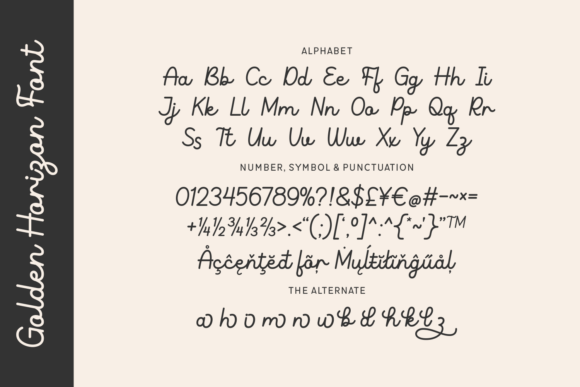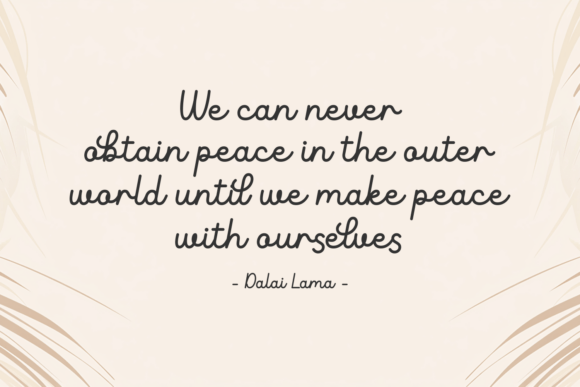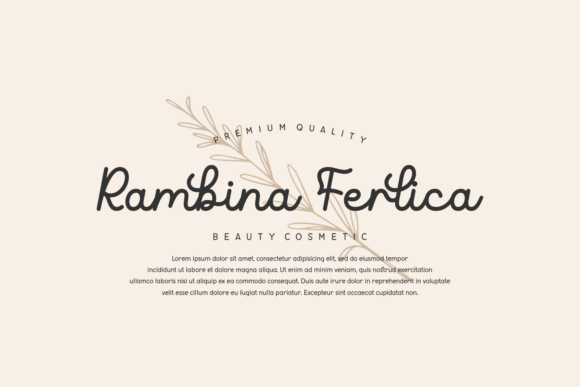
Unlock the Secret to Elevating Your Designs with the Golden Horizon Font
Have you ever stared at a blank canvas, feeling the weight of creativity bearing down on you? The cursor blinks, taunting you with the endless possibilities. Suddenly, a spark of inspiration strikes, and you know exactly what your design needs – a font that exudes elegance and sophistication. That’s where the Golden Horizon Font comes in, a sleek monoline script font designed to elevate your branding, invitations, and social media graphics to the next level.
With its smooth curves and stylish ligatures, the Golden Horizon Font is the perfect addition to any designer’s toolkit. Whether you’re a seasoned pro or just starting out, this versatile font adds a touch of minimalistic sophistication to your designs, making it a valuable asset for any creative project. By incorporating the Golden Horizon Font into your work, you’ll be able to create stunning visuals that leave a lasting impression on your audience.
Key Features of Golden Horizon Font
- Unique Characteristics: Golden Horizon Font features a unique blend of modern and vintage elements, with subtle texture and nuance that adds depth and character to text.
- Font Style: Golden Horizon Font comes in a range of styles, including regular, bold, italic, and bold italic, allowing designers to create varying levels of emphasis and contrast.
Designer Review: Golden Horizon Font
Overall, I think Golden Horizon Font has a lot of potential, but it also has some limitations that need to be addressed. Let’s dive in and take a closer look.
- The font’s unique blend of modern and vintage elements is a great conversation starter. It’s perfect for branding and design projects where you want to stand out from the crowd.
- The font is highly customizable, with a wide range of weights and styles to choose from. This makes it easy to use in various design contexts, from headings to body text.
- The font’s legibility is top-notch, making it easy to read even in smaller sizes.
- The font’s irregularities can be a bit jarring for some designers. If you’re working on a project where consistency is key, Golden Horizon Font might not be the best choice.
- The font’s weight range can be a bit limited, which can make it difficult to achieve the perfect balance between light and dark text.
- The font’s compatibility with certain software and operating systems can be a bit spotty.
Overall, Golden Horizon Font is a solid choice for designers who want to add a touch of uniqueness to their projects. While it’s not perfect, its customization options and legibility make it a great option for the right projects.
Tips for Getting the Most Out of the Golden Horizon Font
The Golden Horizon font is a elegant and sophisticated font, perfect for use in branding and design projects.
Use it to create a professional and polished look in your designs.
Experiment with different font sizes and styles to add visual interest to your designs.
The Golden Horizon font is commonly used in:
Branding and logo design
Business cards and letterheads
Marketing materials and brochures